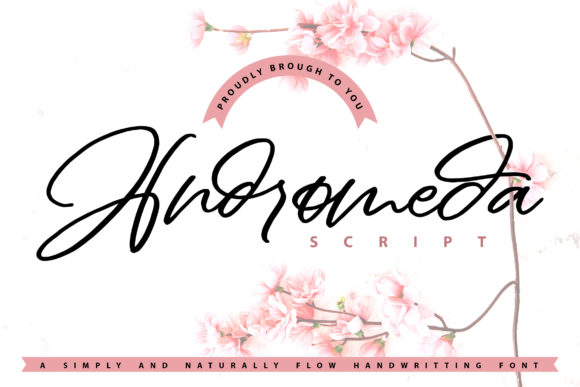
The Quest for the Perfect Font: Discovering Andromeda
I still remember the design project that led me to discover the stunning Andromeda Font. I was working on a wedding invitation suite, and my client had a very specific vision: elegant, modern, and sophisticated. I spent hours scouring font databases, but nothing seemed quite right. That was until I stumbled upon Andromeda – a beautiful, refined script font that exceeded my client’s expectations and mine!
An Honest Review of Andromeda Font
So, what makes Andromeda so special? Let’s dive into the good stuff and a few quirks I’ve encountered.
- ✨ Elegant and Modern Design: Andromeda boasts a classy, sophisticated look perfect for logos, branding, invitations, and more.
- ✅ PUA Encoding: This font is PUA encoded, making it easy to access all the amazing glyphs and ligatures.
- 💫 Versatility: Use Andromeda for wedding designs, social media posts, stationery, and any project requiring a touch of elegance.
While Andromeda is an excellent font, there are a couple of things to keep in mind:
- ⚠️ Glyph Overload: With so many glyphs and ligatures available, it can be overwhelming to navigate. Take some time to explore the font’s capabilities.
- 🤔 Pairing Challenges: As with any script font, finding the perfect pairing can be tricky. Experiment with different fonts to find your ideal match.
The Designer Inspiration Behind Andromeda
While the actual designer of Andromeda remains a mystery, it’s clear that they drew inspiration from classic elegance and modern sophistication. The result is a font that feels both timeless and contemporary.
Q: What is PUA encoding, and how does it benefit Andromeda Font?
A: PUA (Private Use Area) encoding allows for easy access to a wide range of glyphs and ligatures, making Andromeda incredibly versatile and user-friendly.
Q: Is Andromeda Font suitable for body text?
A: While Andromeda is stunning, it’s primarily designed for display purposes. For body text, consider a more straightforward font for readability.